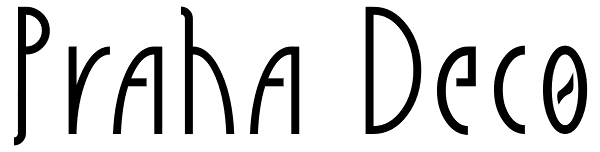
Praha Deco
Praha Deco was inspired by the Prague art deco movement at the turn of the 20th century. Spiced with our own creative blend, this is our tribute to that wonderful era in architecture. The Praha Deco typeface contains a large assortment of extended...